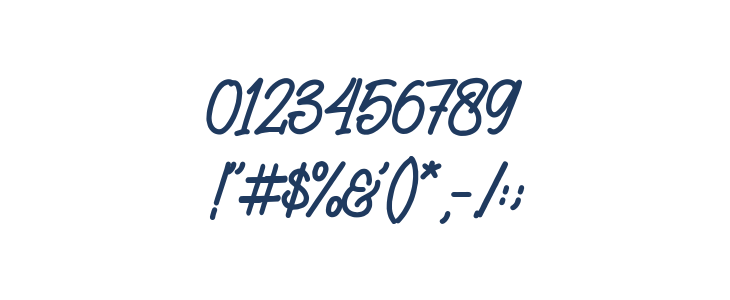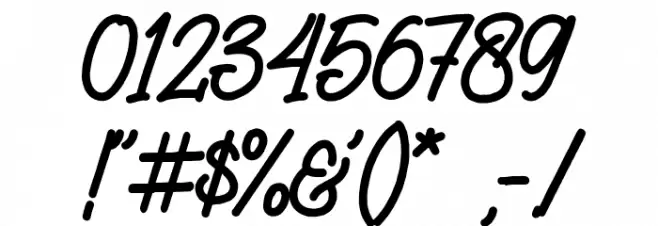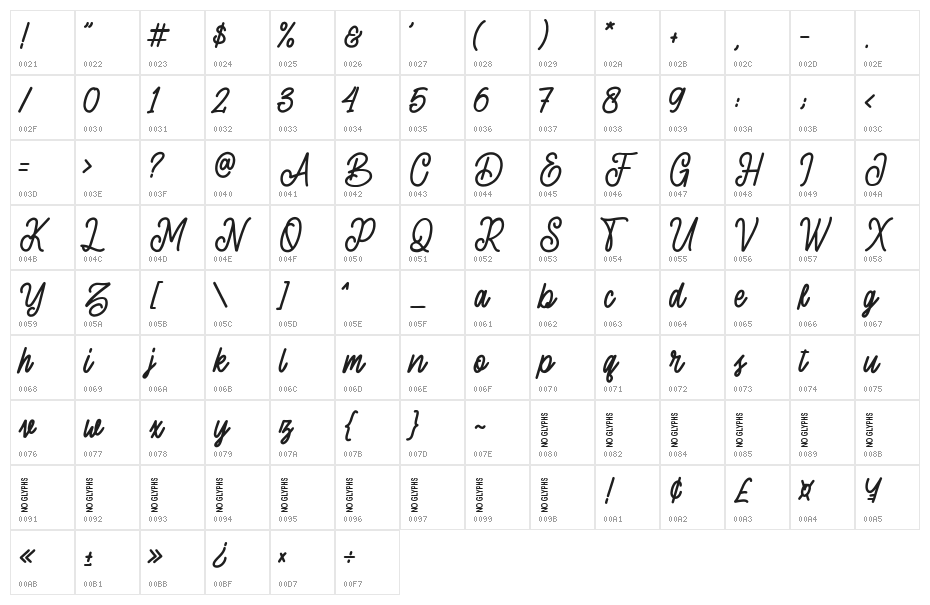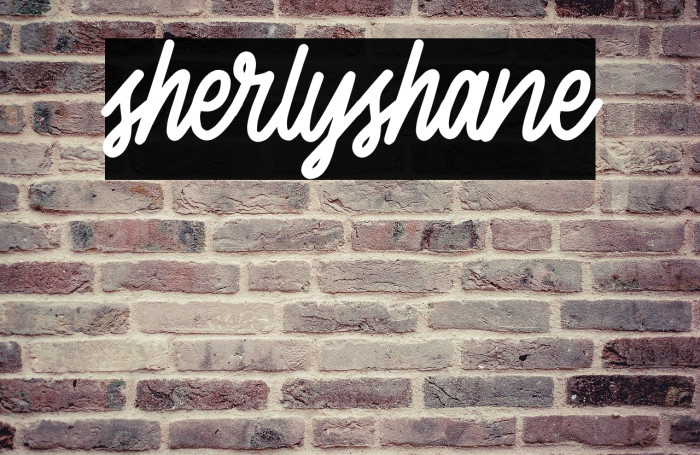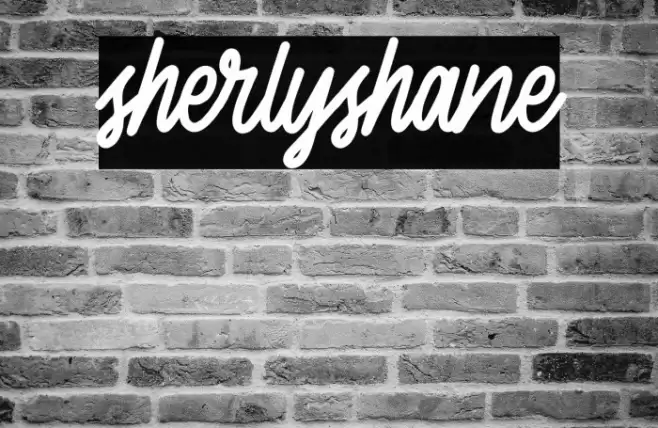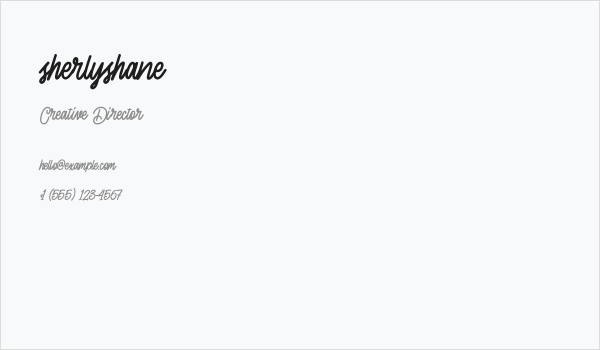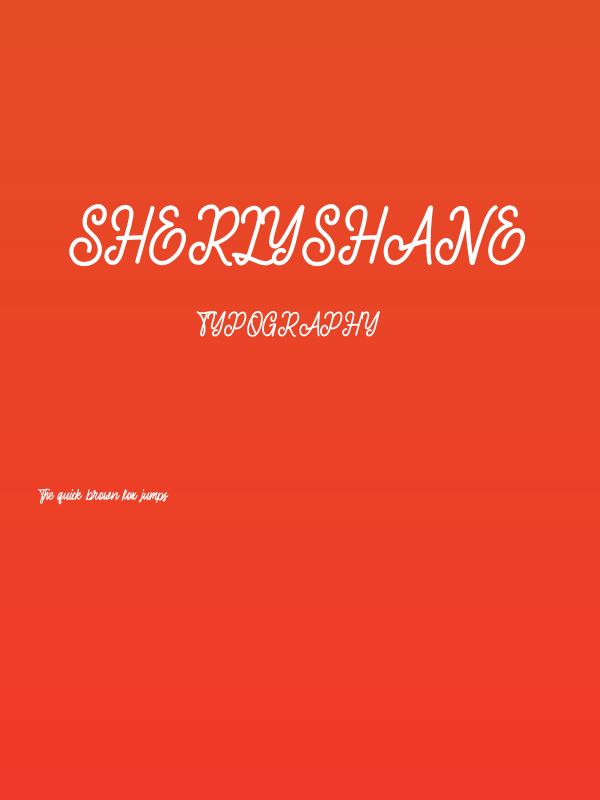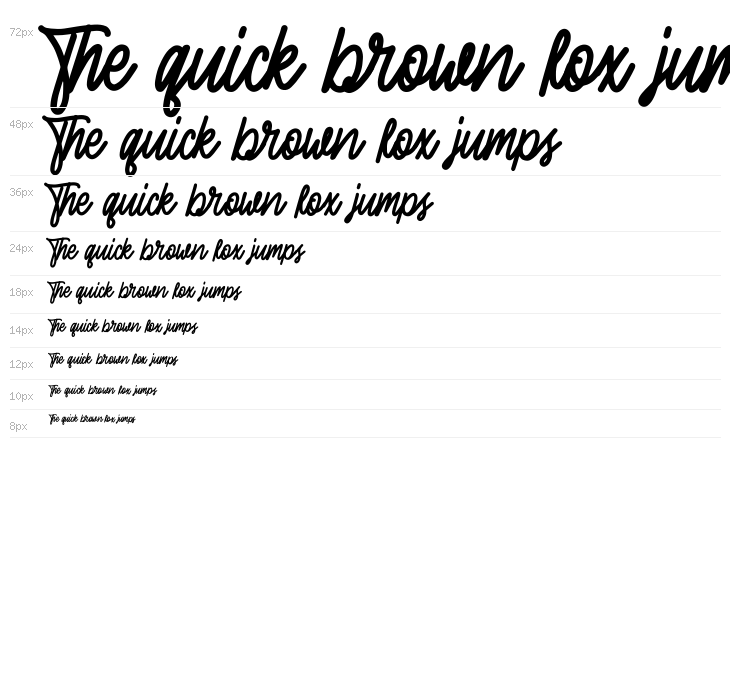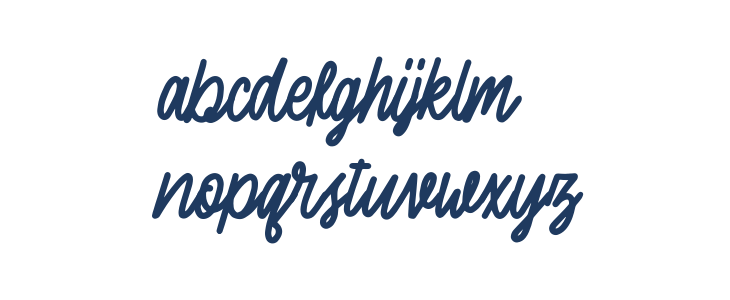
sherlyshane Font
sherlyshane Description
This font features a flowing, cursive style with elegant loops and swashes, giving it a handwritten appearance. The uppercase letters are ornate, with distinctive flourishes that add a touch of sophistication. The lowercase letters maintain a consistent flow, enhancing readability while preserving the script's decorative nature. Numbers and special characters are designed to complement the overall aesthetic, ensuring a cohesive look across all text elements. The font's smooth curves and balanced proportions make it suitable for a variety of creative applications.